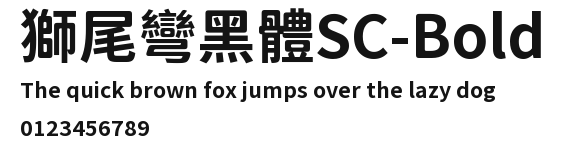
獅尾彎黑體SC-Bold Preview
• Font Name: 獅尾彎黑體SC-Bold
• Font ID: FontForge 2.0 : Swei Curve Sans CJK SC Bold : 20-4-2020
• Full Font Name: 獅尾彎黑體SC-Bold
• Version: Version 2.129
• PostScript Name: SweiCurveSansCJKsc-Bold
• Character Count: 44508
About 獅尾彎黑體SC-Bold.ttf
獅尾彎黑體SC-Bold.ttf is a modern, elegant sans-serif font designed for ultimate readability and visual harmony. Perfect for branding, headlines, web design, and print materials.